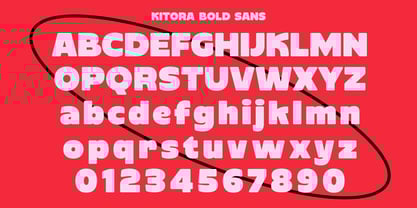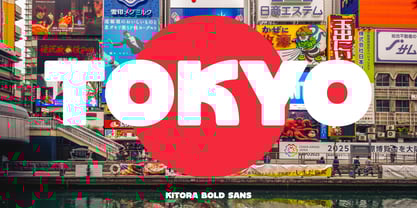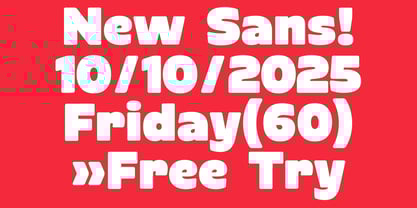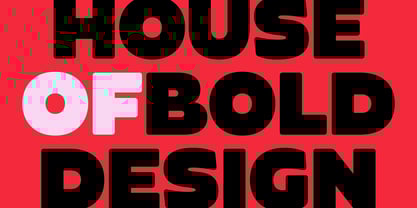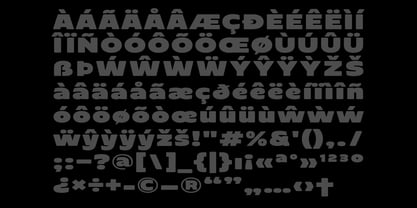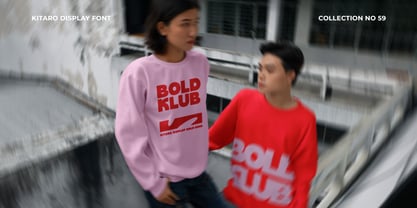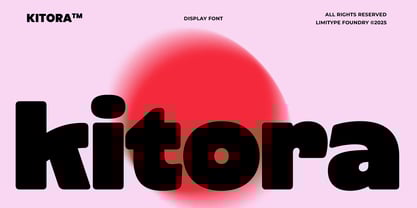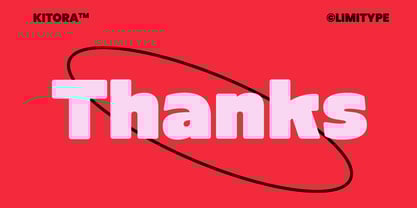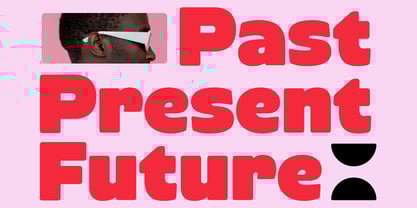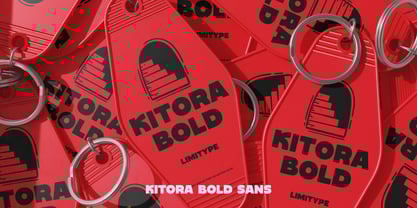
Kitora
von limitype
Die Schriftfamilie Kitora wurde von Muhammad Muammar, Furqan Sudirman entworfen und von limitype veröffentlicht. Kitora enthält 1 Stile.
Kitora is a bold sans typeface with rounded and compact shapes that highlight a playful and modern impression. Its smooth yet solid character gives a look that is both strong and warm, making it perfect for headlines, brand identities, and designs that aim to stand out with a friendly and confident personality. Kitora available with: - Uppercase - Lowercase - Number - Symbol - Multilingual
Designer: Muhammad Muammar, Furqan Sudirman
Herausgeber: limitype
Foundry: limitype
Eigentümer des Designs: limitype